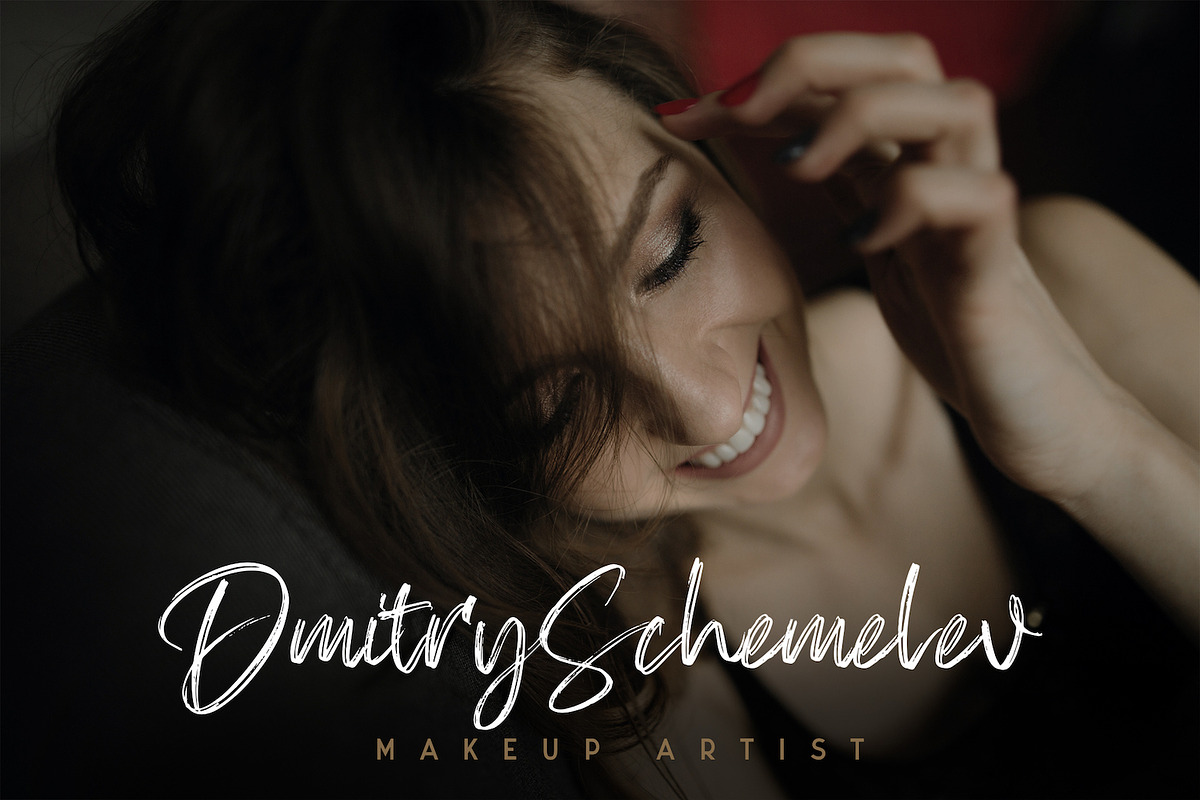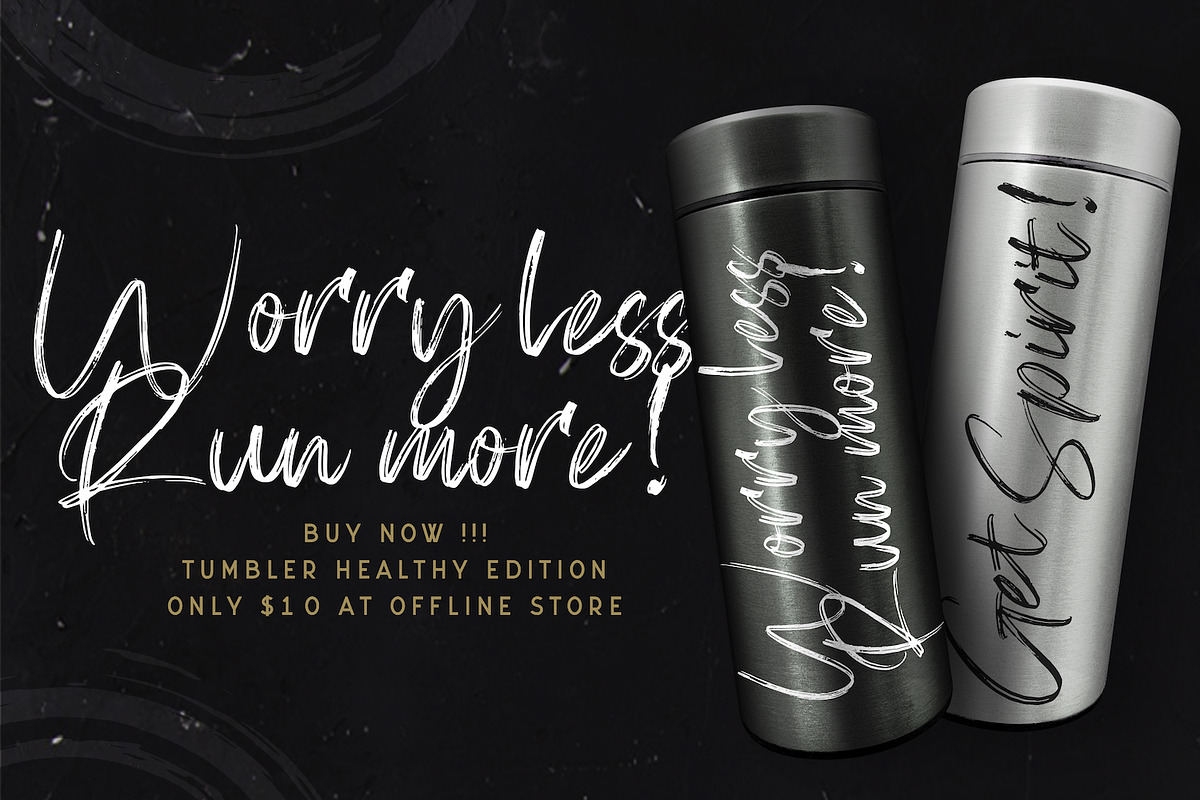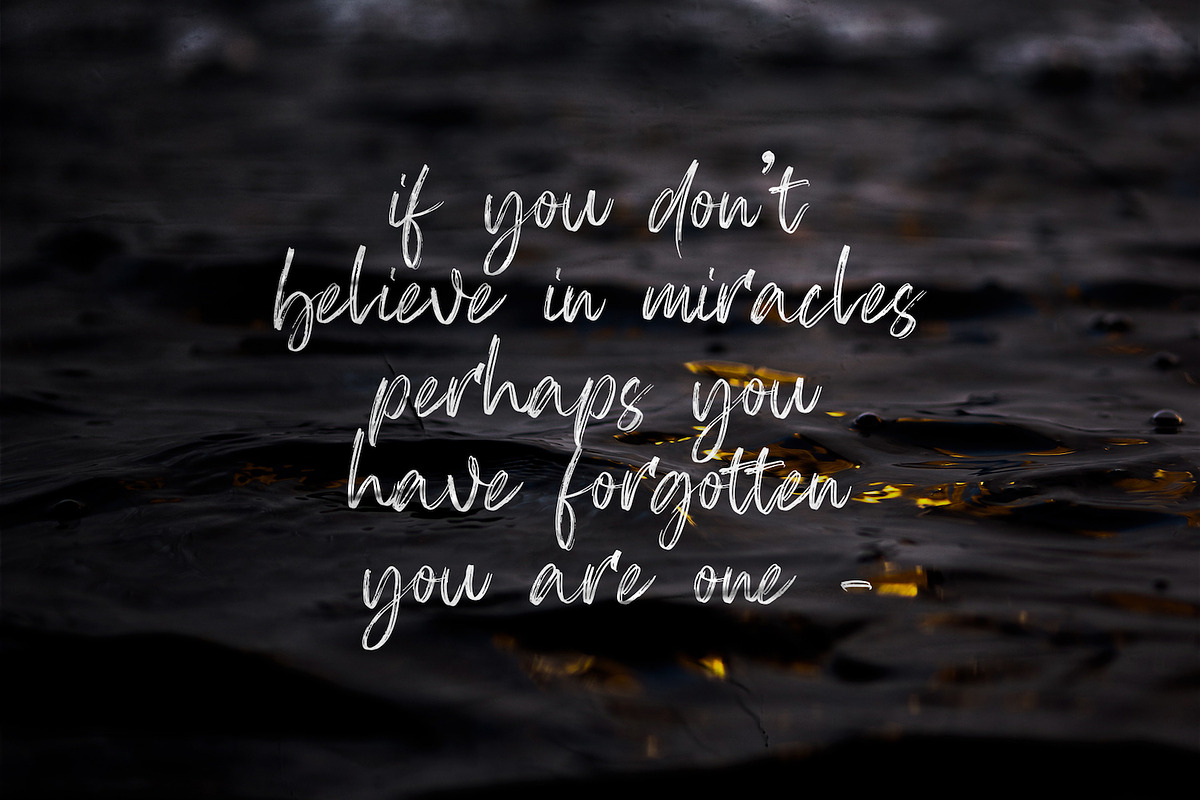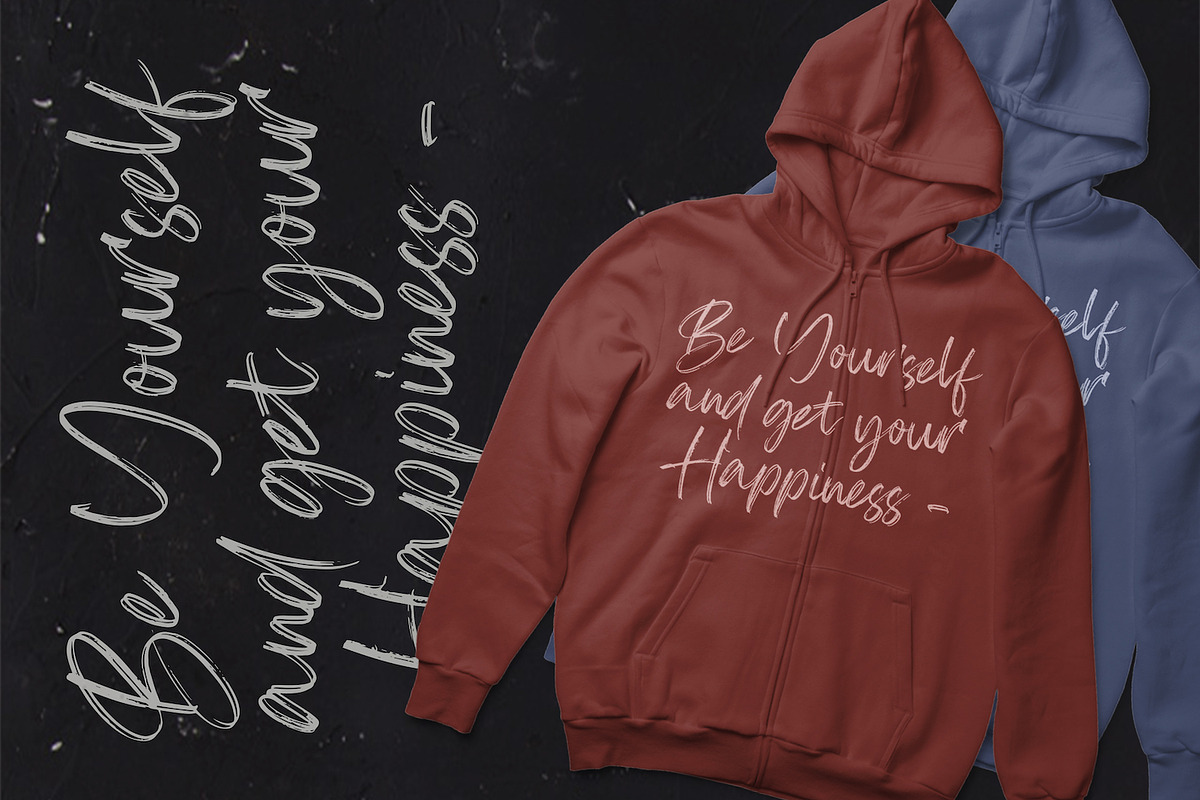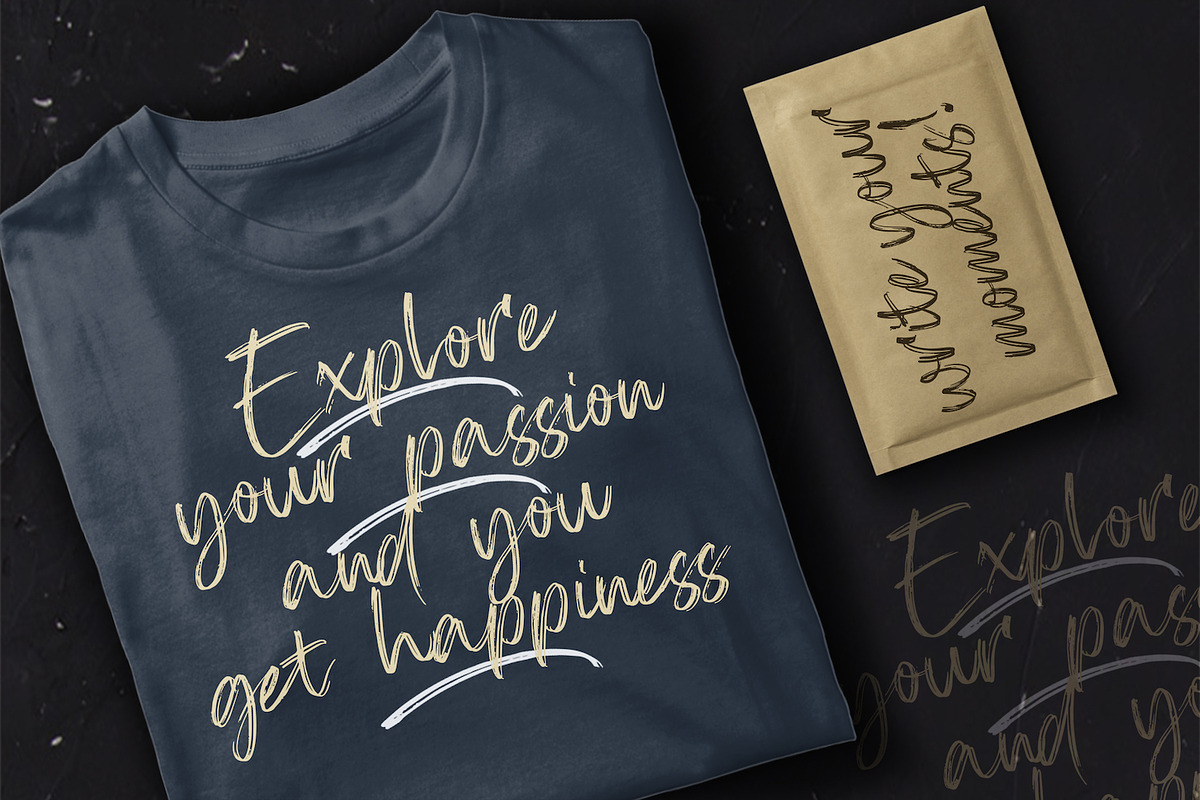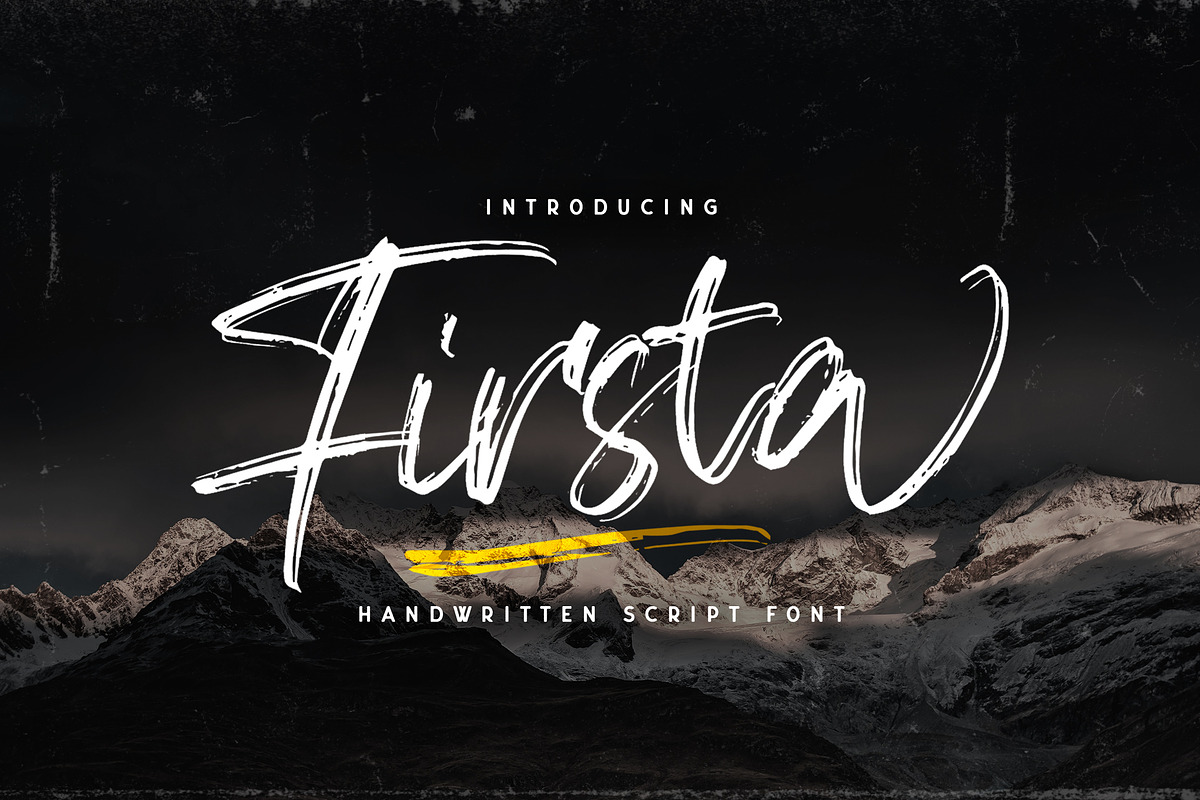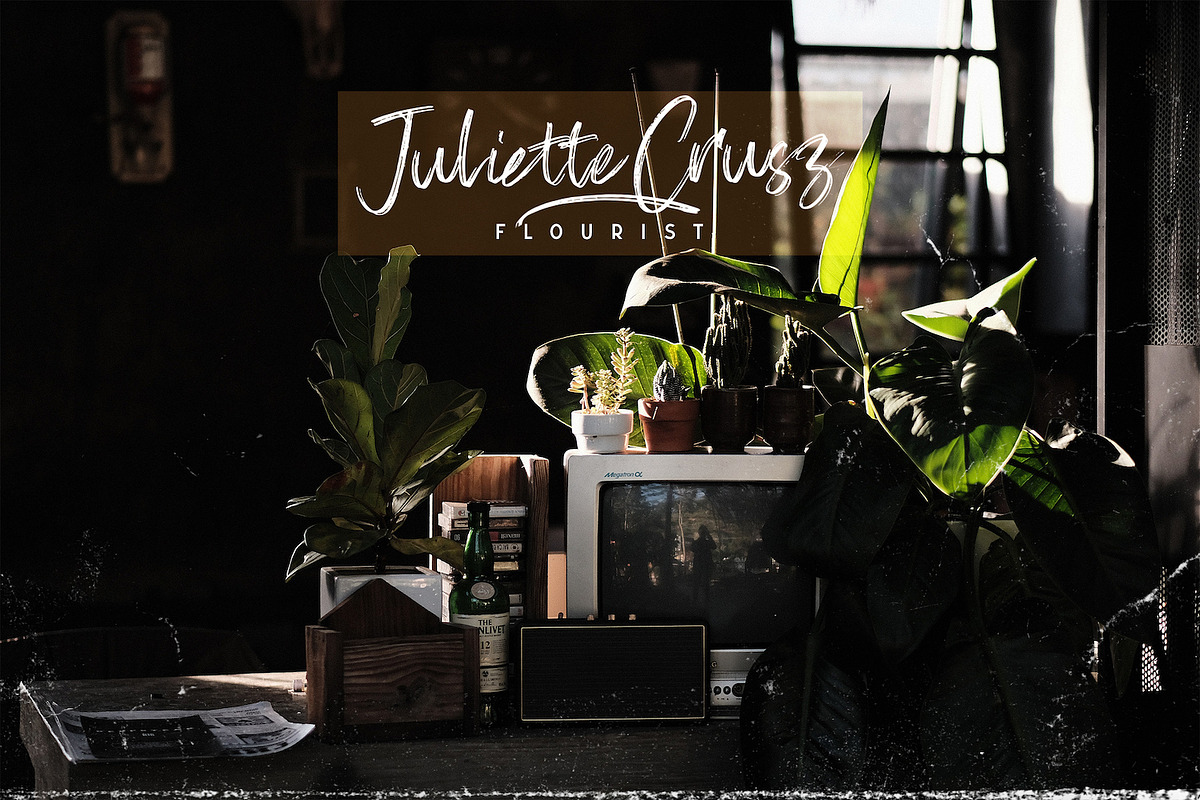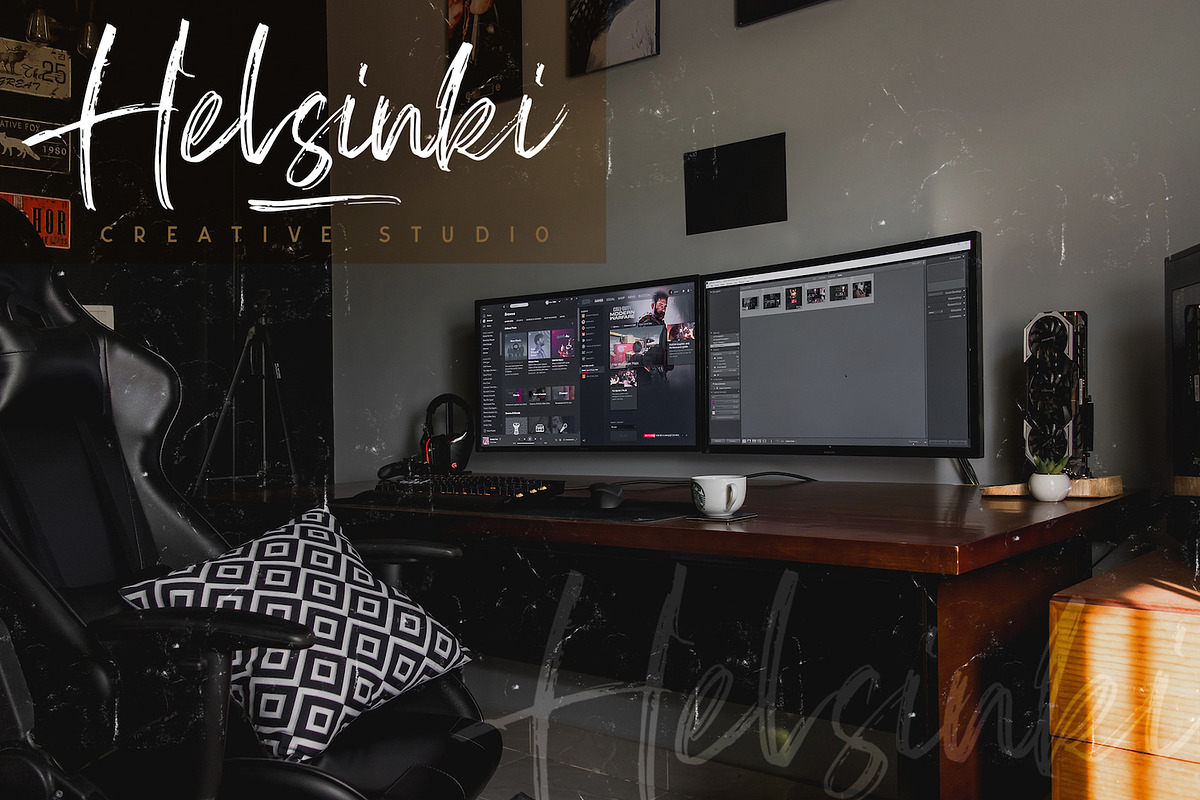
Firsta - Handwritten Font
Introducing Firsta - Handwritten Font
Firsta is a Script Font with Handwritten Style. The Firsta font made with digital brush pen strokes that making this font look authentic. This font is perfect for fashion brand, wedding invitation, business card, logo brand, signature, and then calligraphy.
Why Firsta - Handwritten Font is worth a look
Firsta - Handwritten Font by StringLabs fits naturally into Branding, posters, packaging, typography.